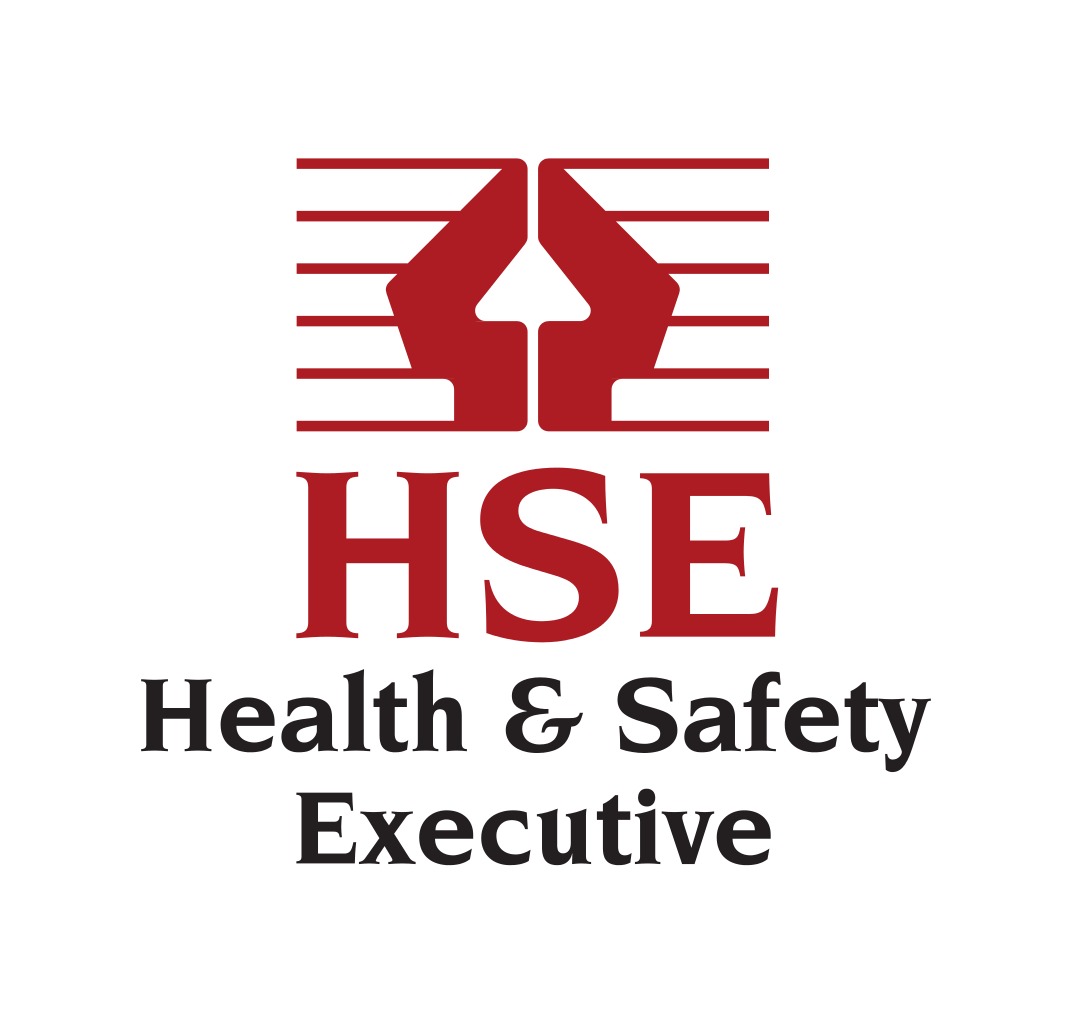
Health and Safety Executive Font
Fonts in UseThe Health and Safety Executive (HSE) is a UK government agency responsible for regulating workplace health and safety. Its mission is to prevent work-related death, injury, and ill health.
Designed by Italian type designer Aldo Novarese in 1984, the Health and Safety Executive (HSE) logo incorporates an inscribed serif known as ITC Novarese Bold.